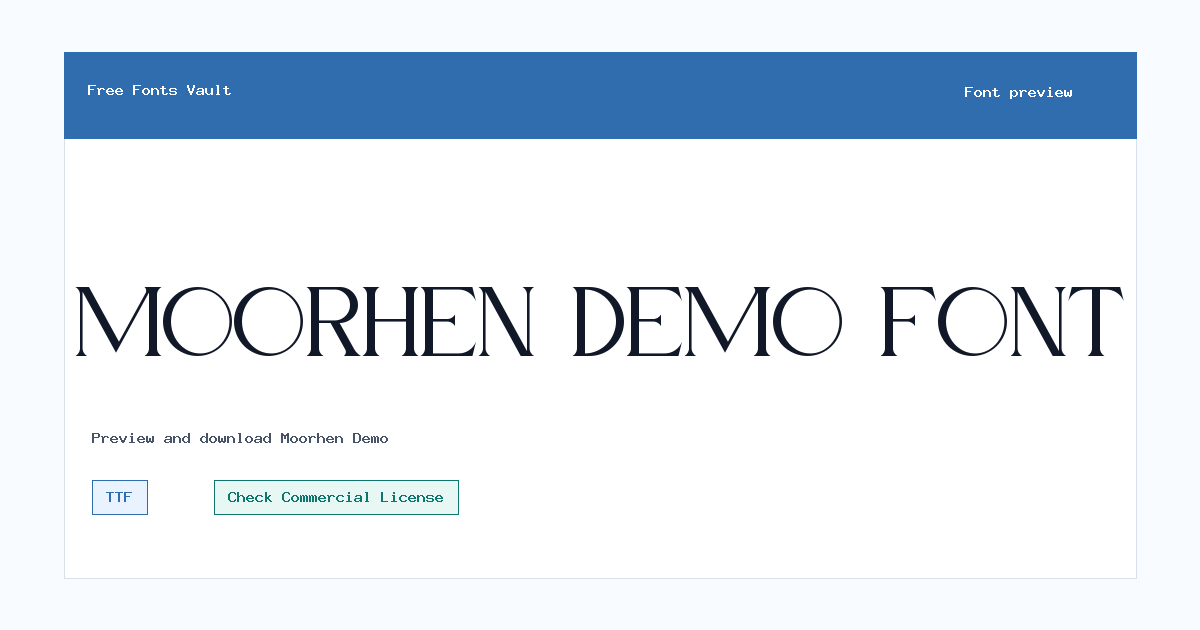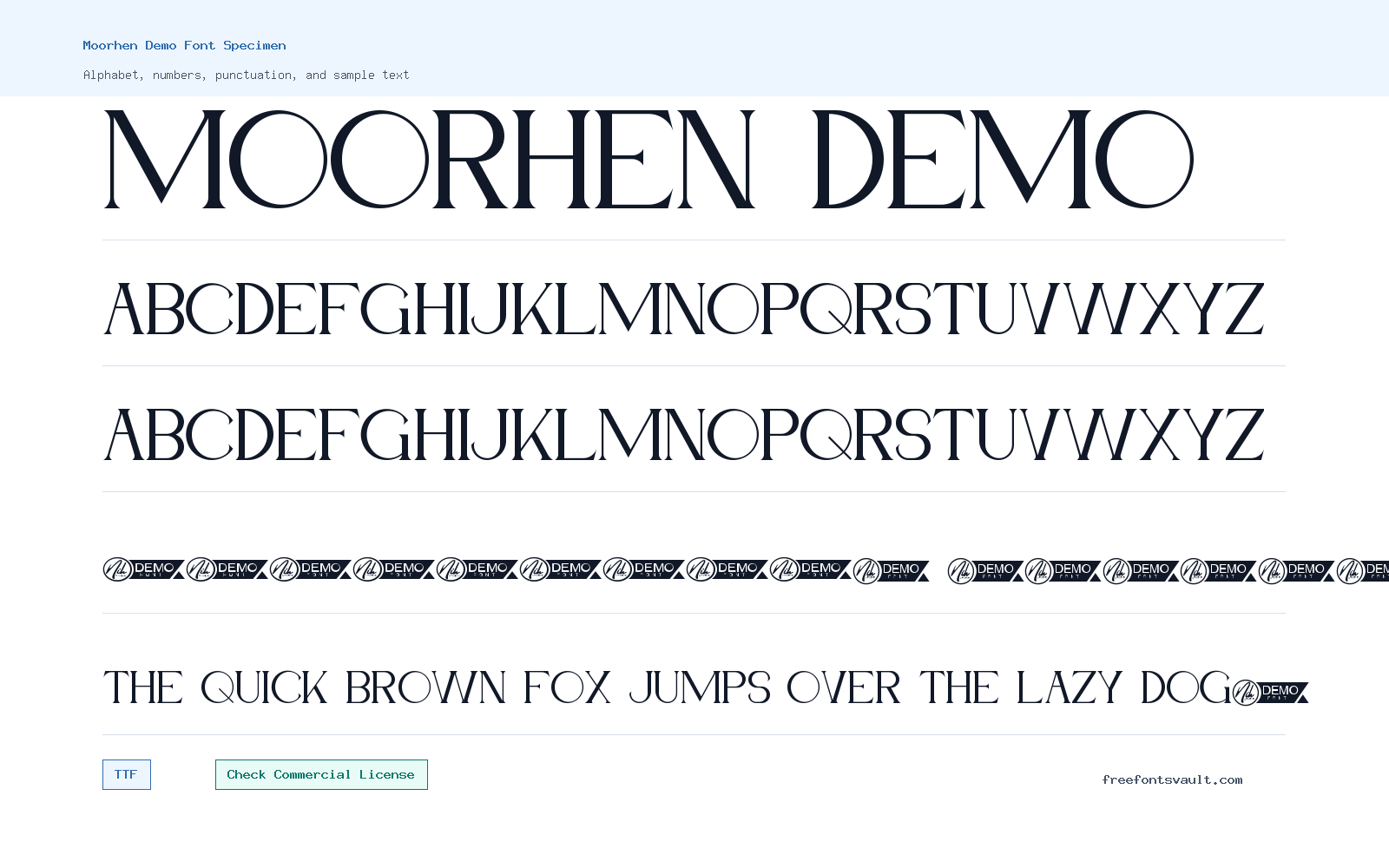
Moorhen Demo
- Designer Shalsha & Sarah SP
- Foundry NihStudio
Moorhen Demo font.
Moorhen Demo has a decorative display feel, so it should be judged by how the exact word looks in the preview. Demo fonts often suit mockups, personal concepts, testing, and early design exploration, but they may have license limits for business use. Treat it as a visual headline choice rather than a general reading font.
Moorhen Demo is credited to Shalsha & Sarah SP and NihStudio.
Who designed Moorhen Demo?
The font is credited to Shalsha & Sarah SP, with NihStudio listed as the foundry.